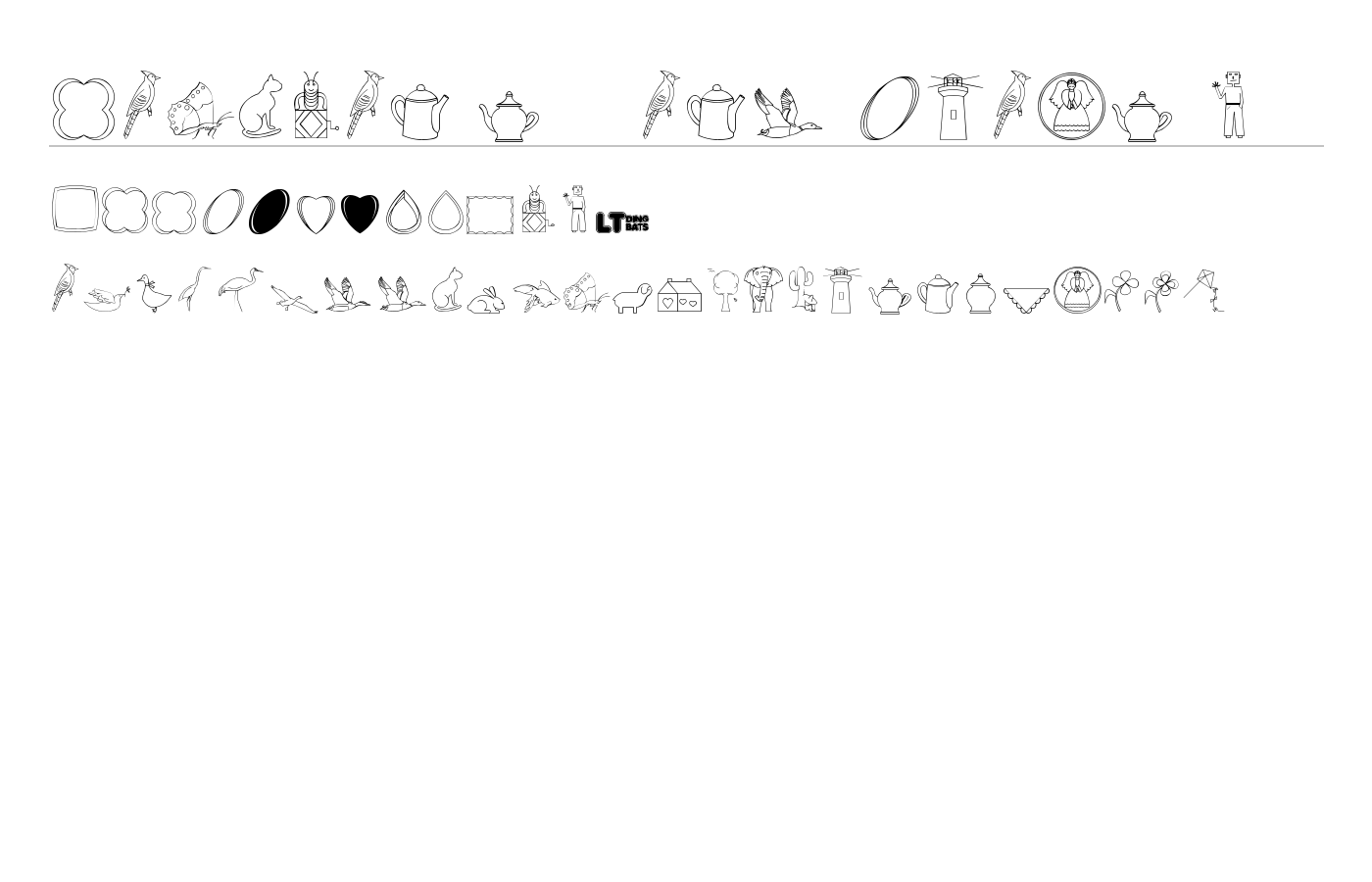
CaliKat's Path Draws LT is a playful dingbat font featuring a charming collection of whimsical, outline-style illustrations including animals, everyday objects, and decorative shapes. Its light, delicate lines and simple forms make it perfect for adding a handcrafted, fun touch to creative projects, invitations, children's materials, or casual branding. This font shines in designs that need a friendly, imaginative vibe rather than traditional text use.
CaliKat's Path Draws LT Font